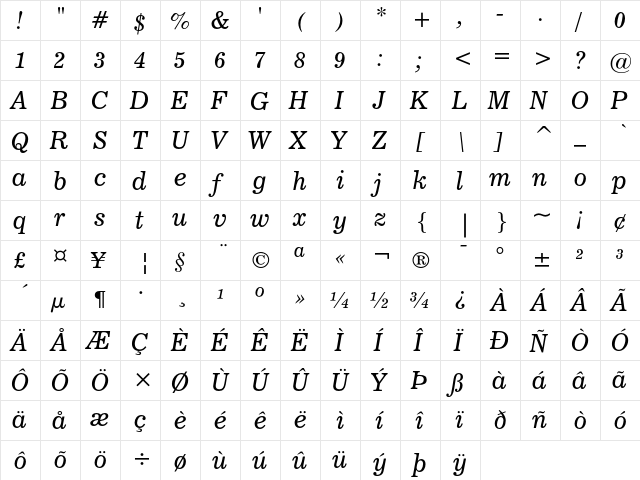
News 706 Italic Font Preview
News 706 Italic
Design Context for News 706 Typeface
News 706 takes a measured approach to typography — its balanced proportions and neutral character make it a reliable workhorse for both digital and print work. Its italic angle brings a sense of urgency and motion to the letterforms.